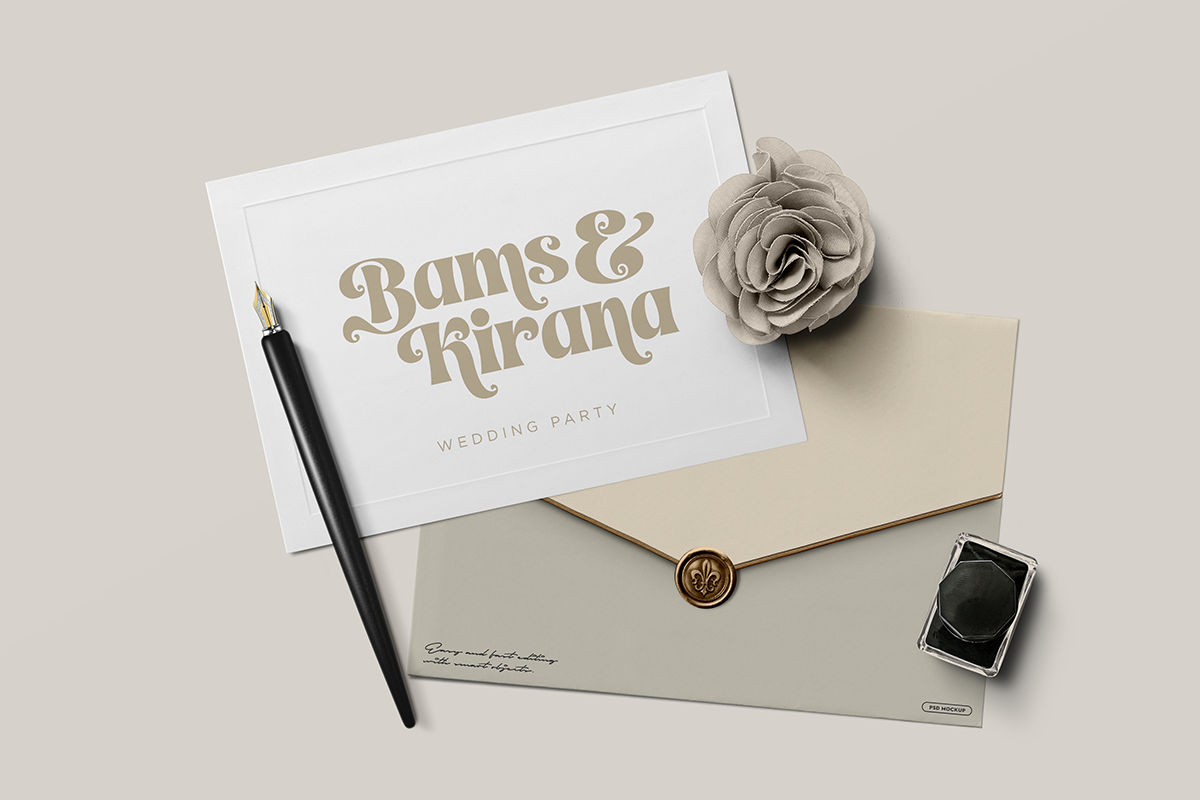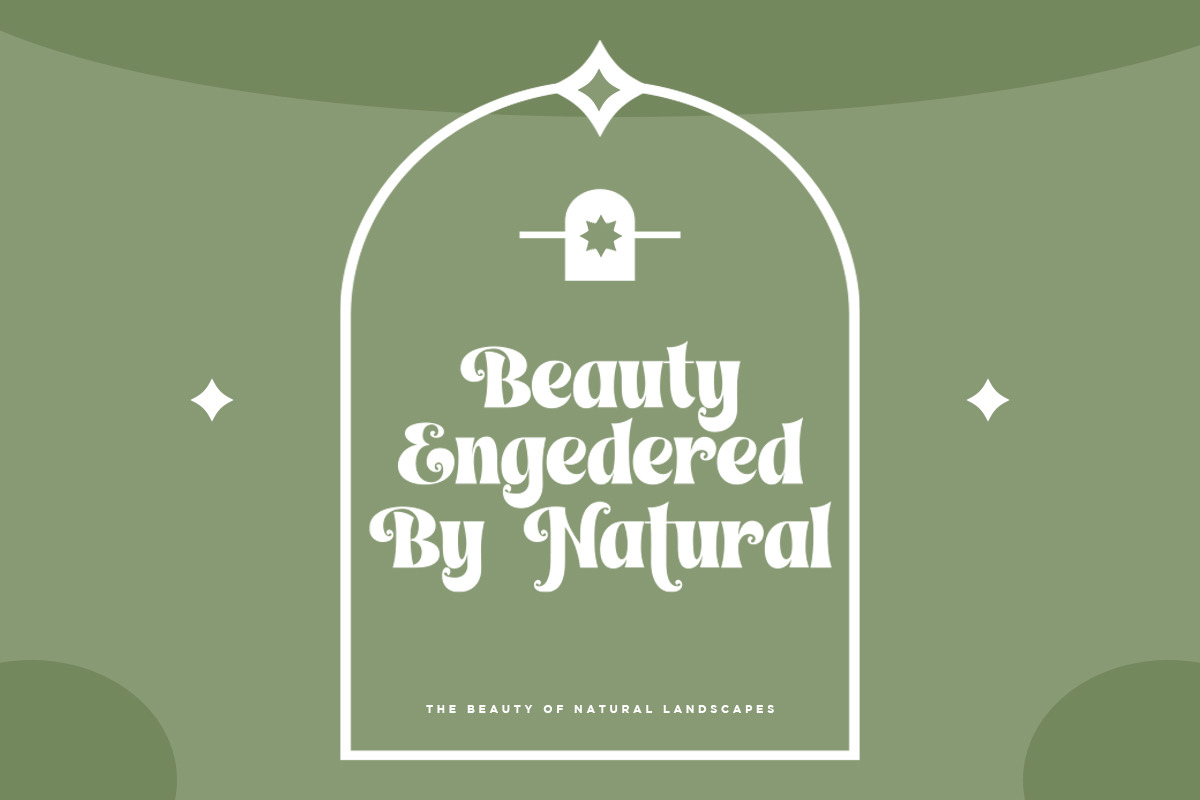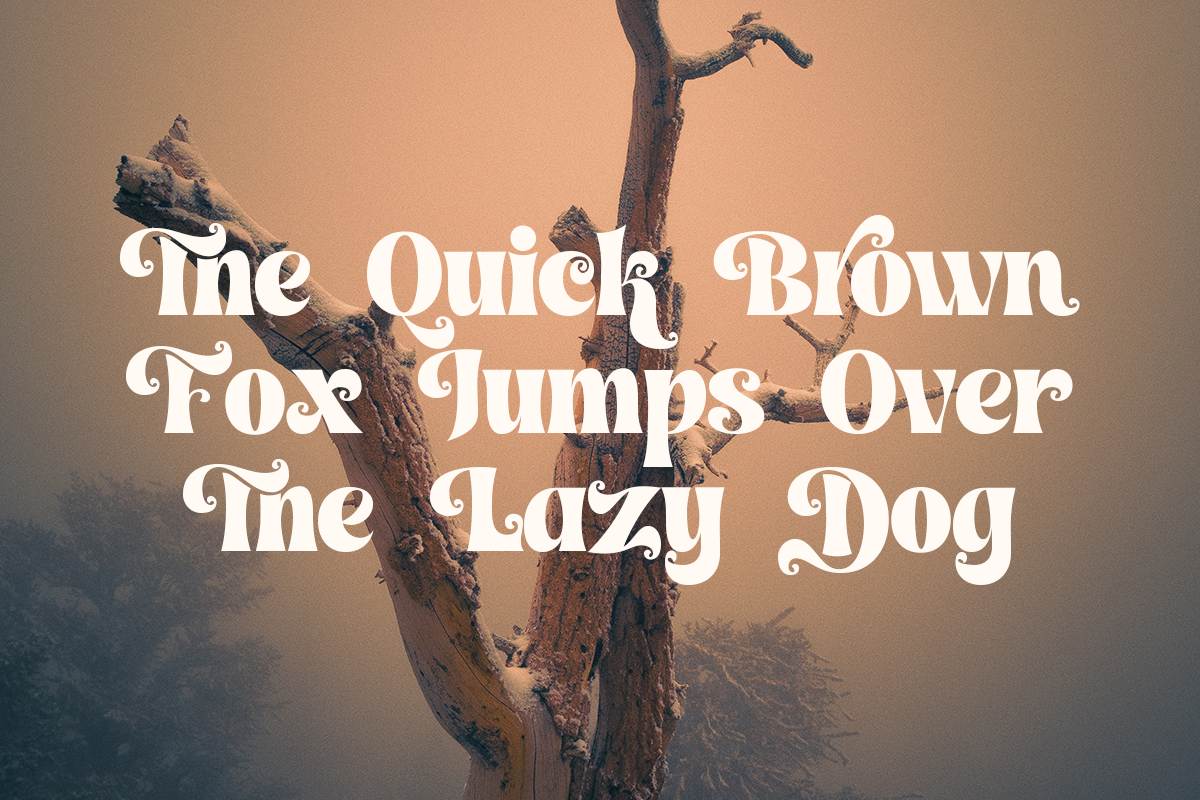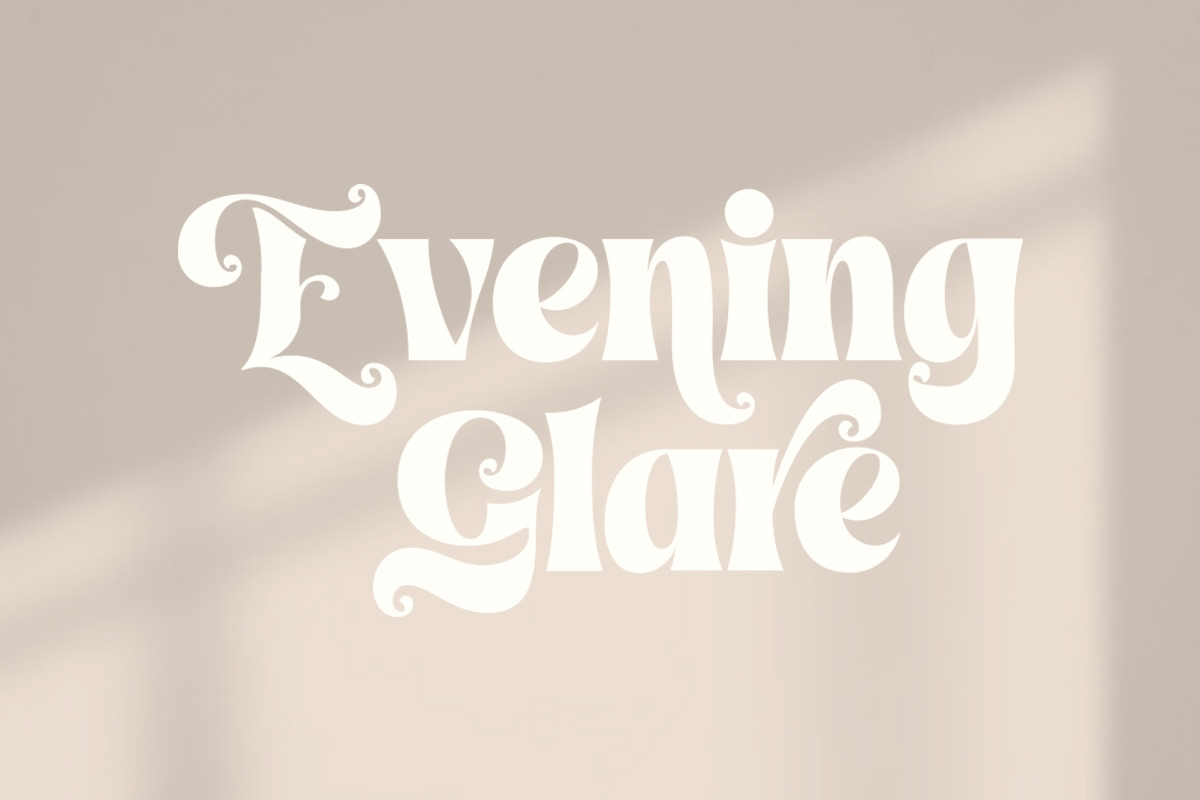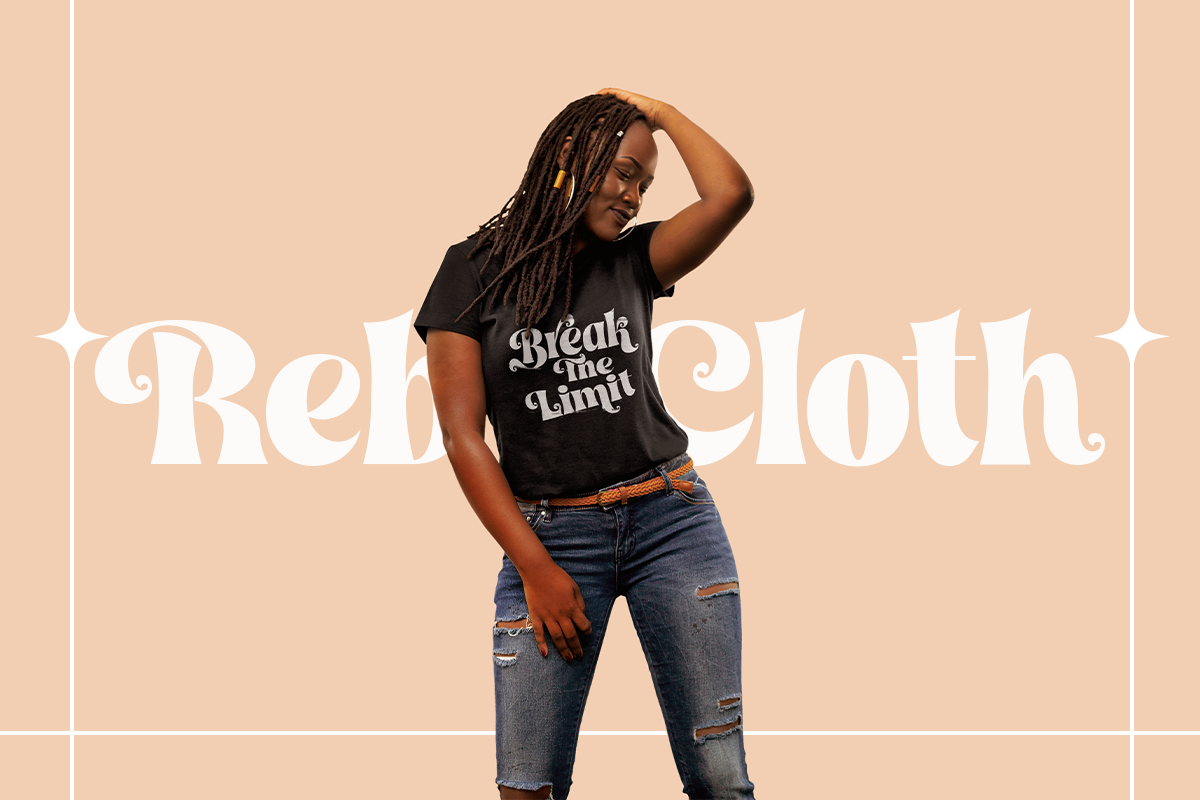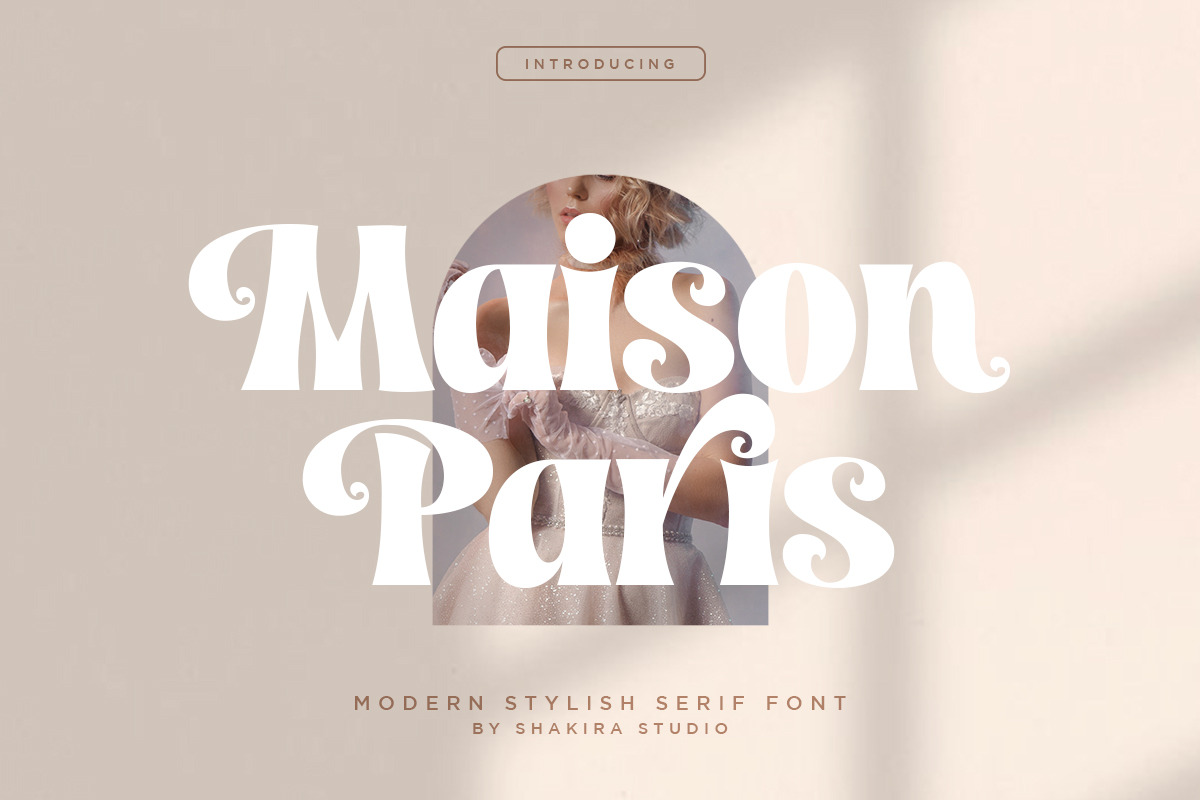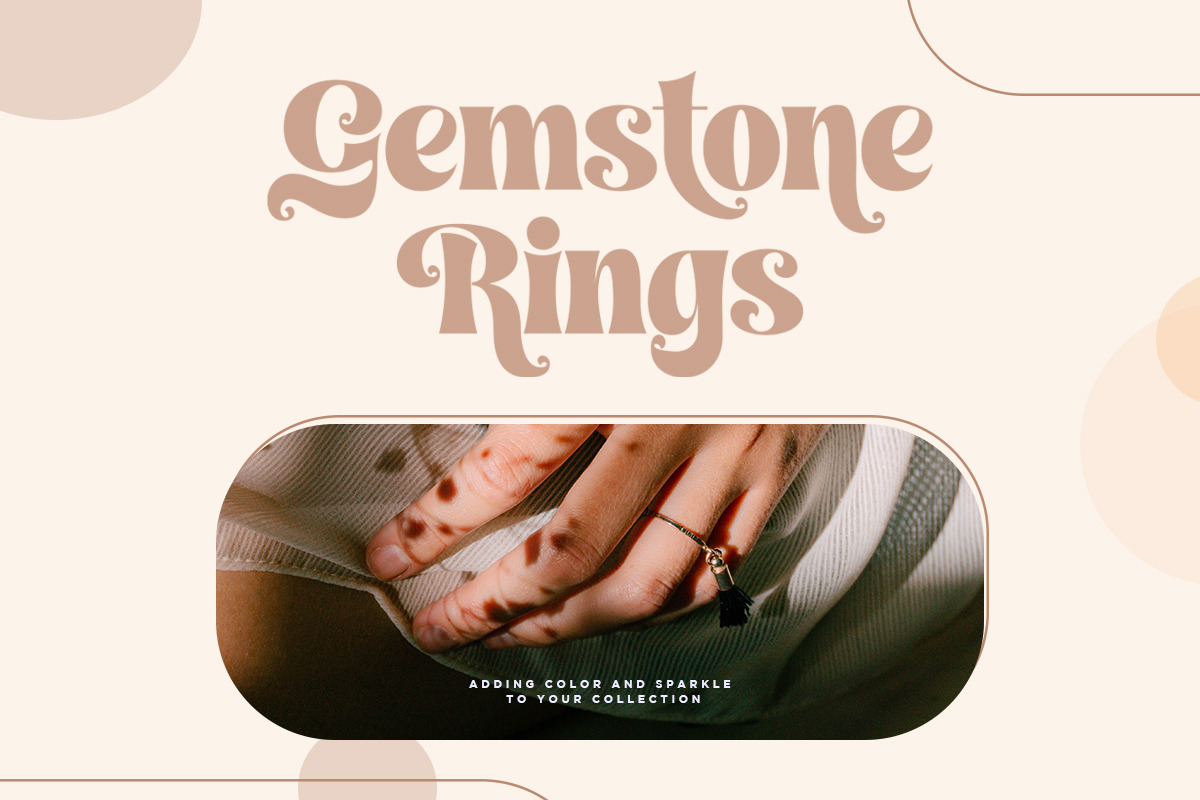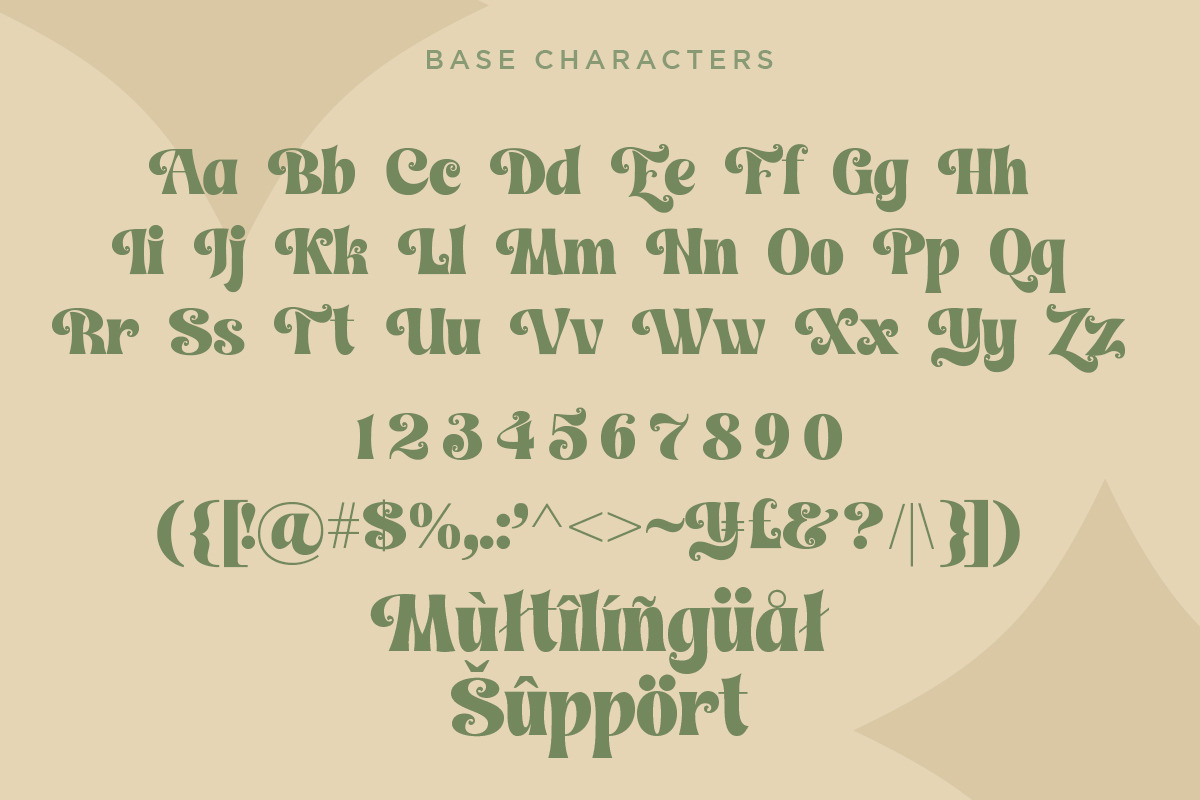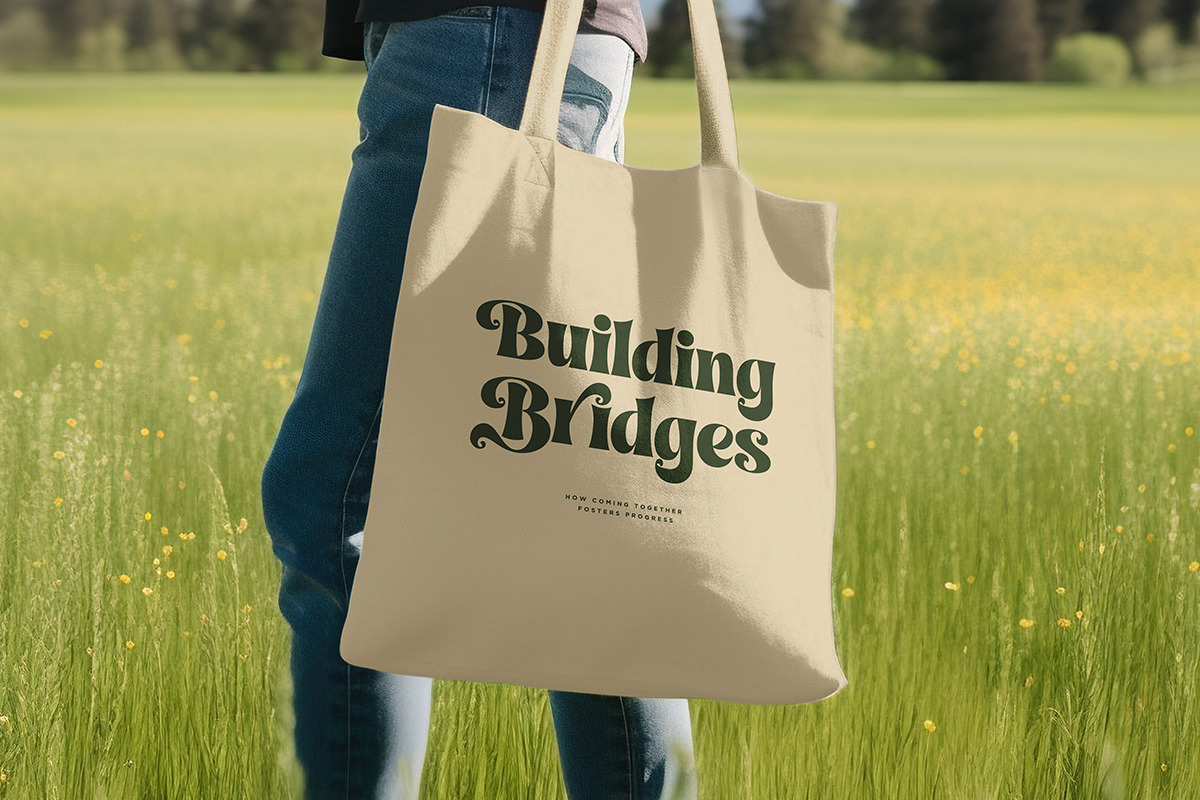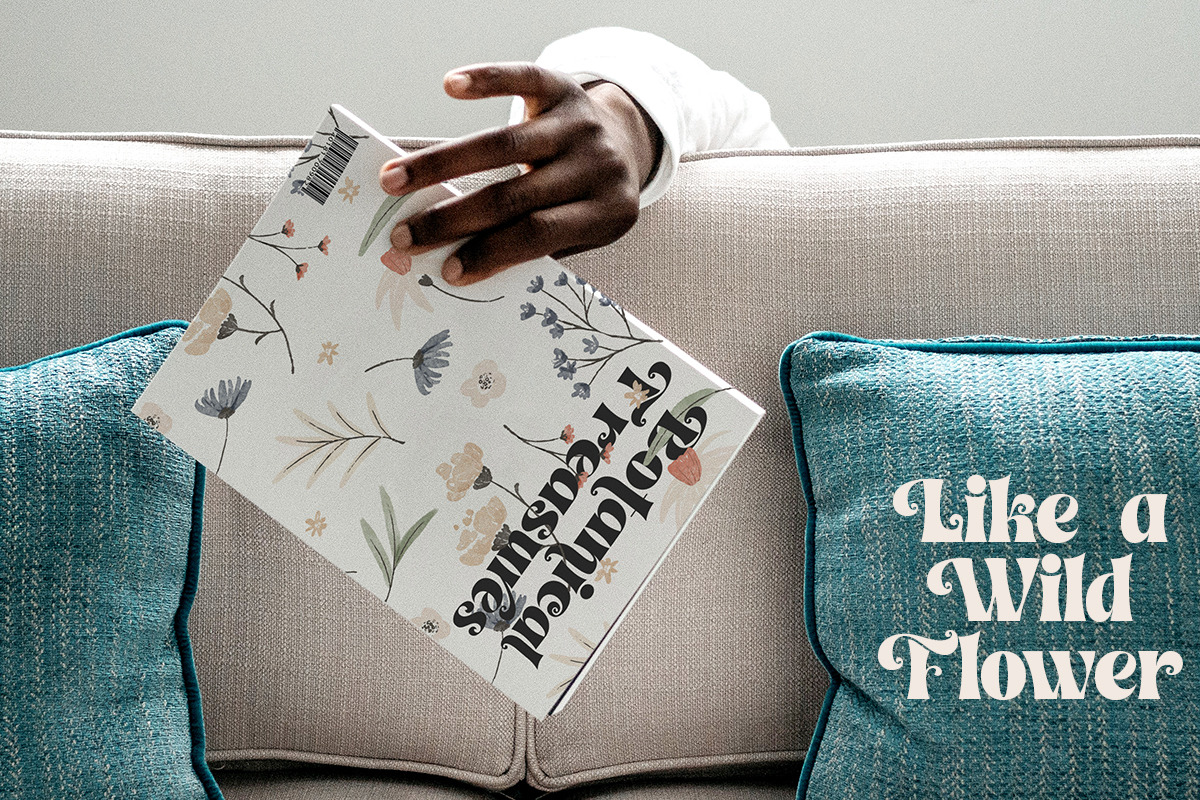
Maison Paris - Modern Stylish Font
"Introducing Maison Paris - Where Modern Elegance Meets Timeless Sophistication!
Maison Paris is the font that defines contemporary style, making it an absolute must-have in today's design scene. This font effortlessly marries modern chic with timeless sophistication, embodying the very essence of what's trending now in the world of typography.
With a versatility that knows no bounds, Maison Paris is your key to creating stunning designs that demand attention in today's competitive landscape. Whether you're crafting a high-end brand's logo, a cutting-edge editorial layout, or a minimalist wedding invitation, this font adds an element of tasteful extravagance that's currently sought after.
Don't miss the chance to infuse your designs with the most sought-after modern stylish serif font of the moment. Maison Paris is your ticket to ensuring your projects are impeccably current and stylish. Embrace the future of design today with Maison Paris!"